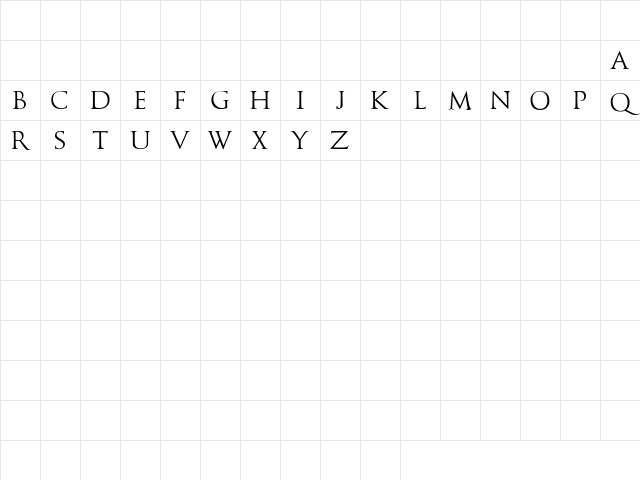
Caesario Demo Regular
Design Context for Caesario Demo
Caesario Demo is a composed and adaptable typeface that performs quietly and consistently across a wide range of design contexts.